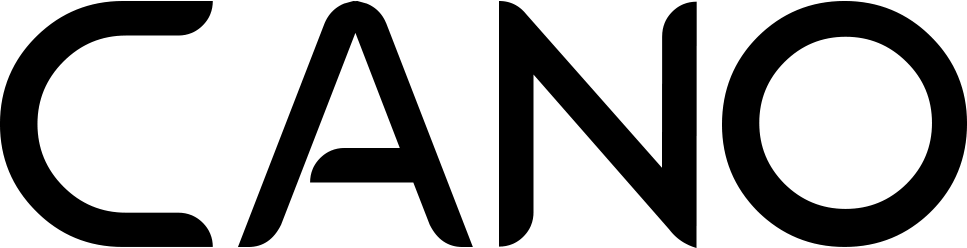
Cano Font
Have a dry run in this Cano font to handle the competition in typography design and improve your ingenuity to think out of the box amazingly. This san serif font will bring to light many headlines due to its clean and modern design.
Not in doubt, it would pull out all the stops in highlighting many presentations; paragraph writing projects, apps, websites, urban, and branding.